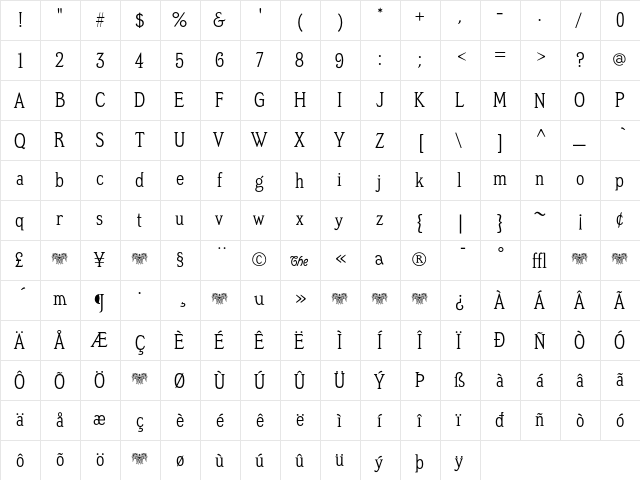
MeyerTwo Condensed
Design Context for MeyerTwo Typeface
MeyerTwo takes a measured approach to typography — its balanced proportions and neutral character make it a reliable workhorse for both digital and print work. The condensed width makes it efficient for tight spaces without sacrificing legibility.